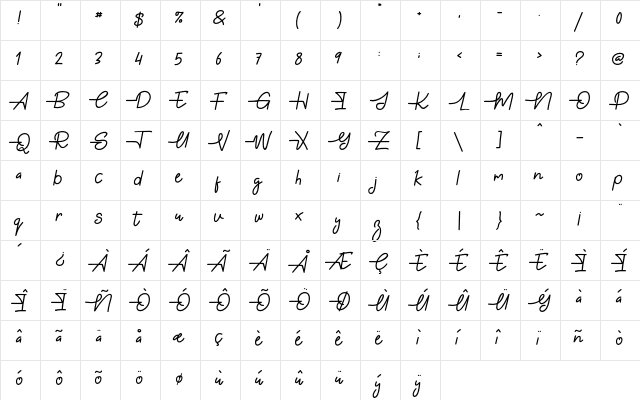
Gabuek Script Font Preview
Gabuek Script Gabuek Script
Gabuek Script Font Details
| Foundry | Khurasan |
| Designer | Khurasan |
Design Context for Gabuek Script Typeface
Gabuek Script flows with the natural rhythm of handwritten lettering, making it ideal for designs that call for warmth and personal expression.
Font Pairing: Combine Gabuek Script with a simple geometric sans for maximum contrast — the tension between flowing curves and clean structure is a classic typographic pairing.
Pro Tip: Pair Gabuek Script with a clean sans-serif for supporting text. The contrast between fluid script and geometric structure creates an elegant typographic hierarchy.